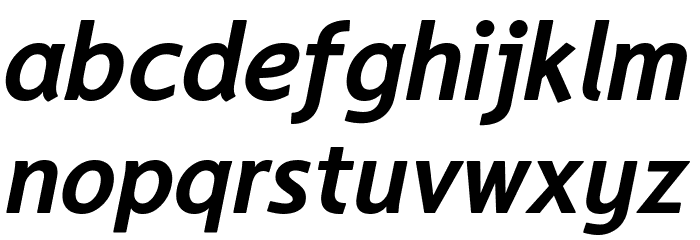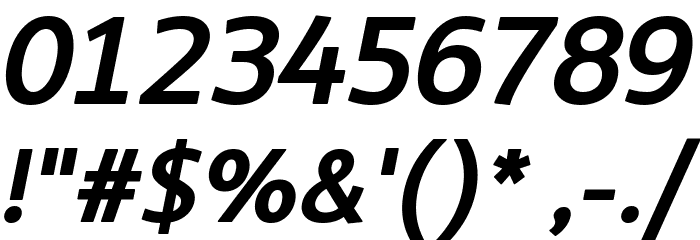
LT Asus Bold Italic Font
This font features a bold and italic style, characterized by its dynamic and forward-leaning appearance. The letters are well-defined with a consistent stroke width, giving it a strong and assertive presence. The uppercase and lowercase characters maintain a harmonious balance, while the numerals are clear and easily readable. The special characters are distinct and complement the overall design, making it versatile for various applications. Its modern aesthetic is suitable for projects that require a contemporary and professional look.
A bold and italic font with a modern, dynamic style.
- Proposed Projects: Ideal for branding, advertising, headlines, and digital media projects.
- Use Case: Headlines, Logos, Branding